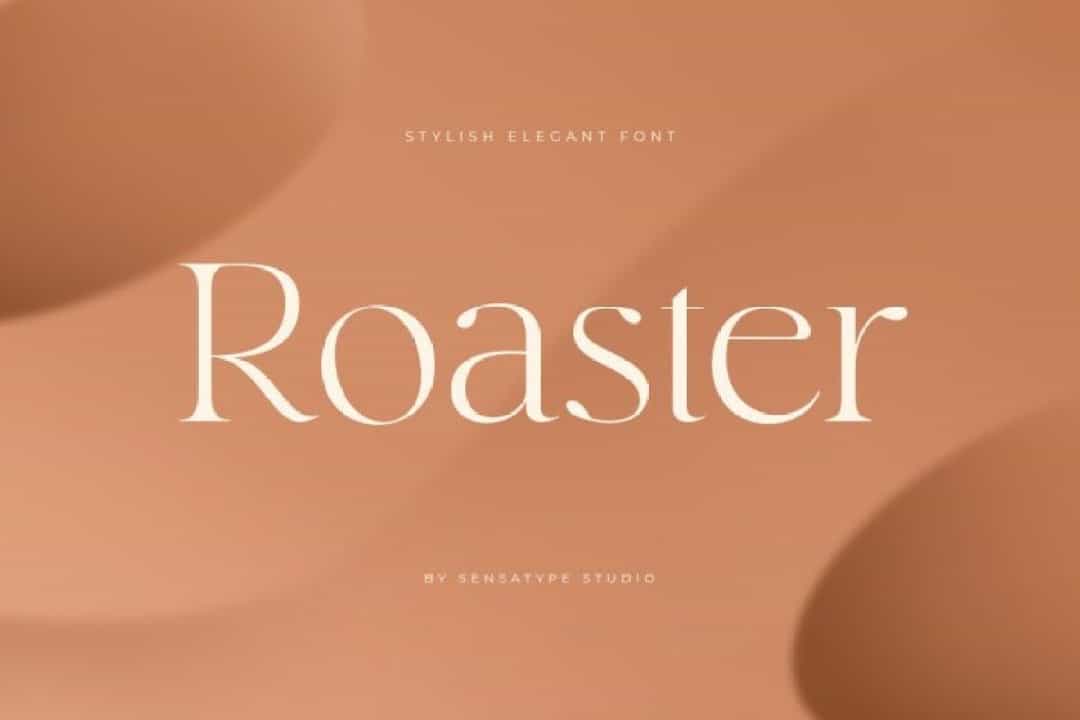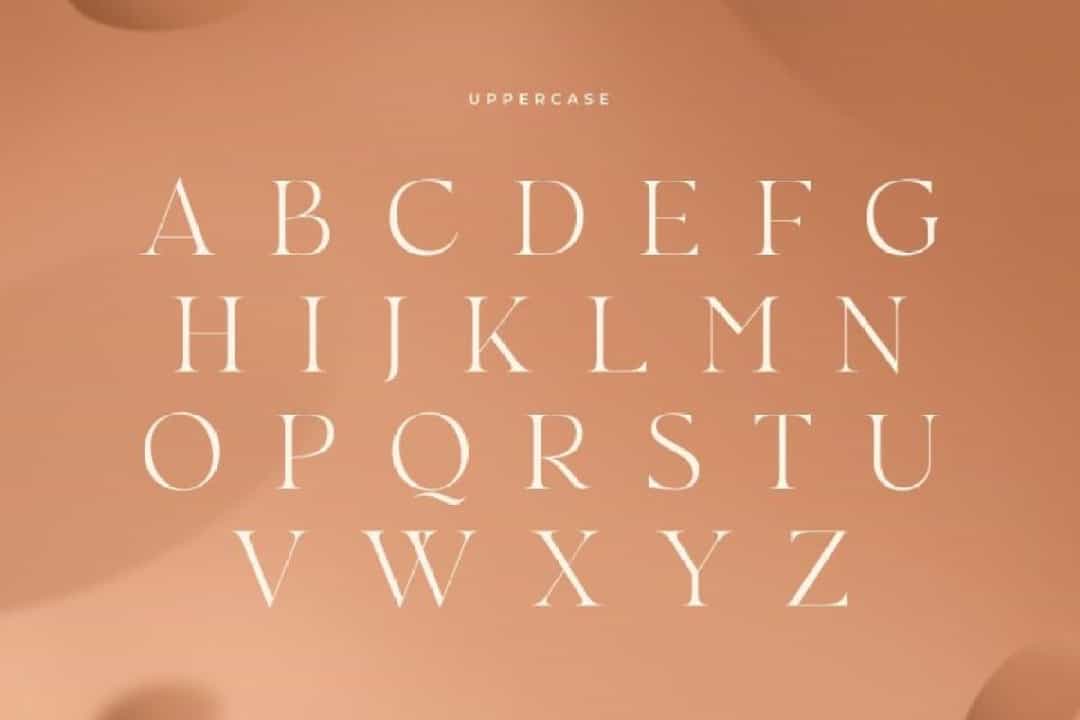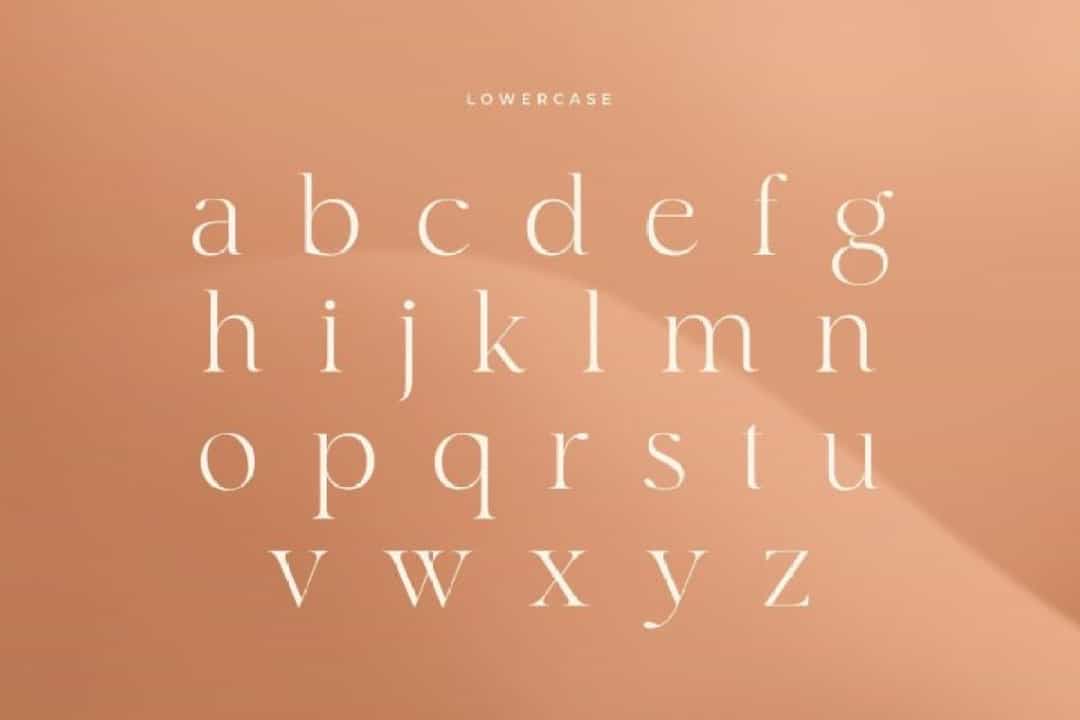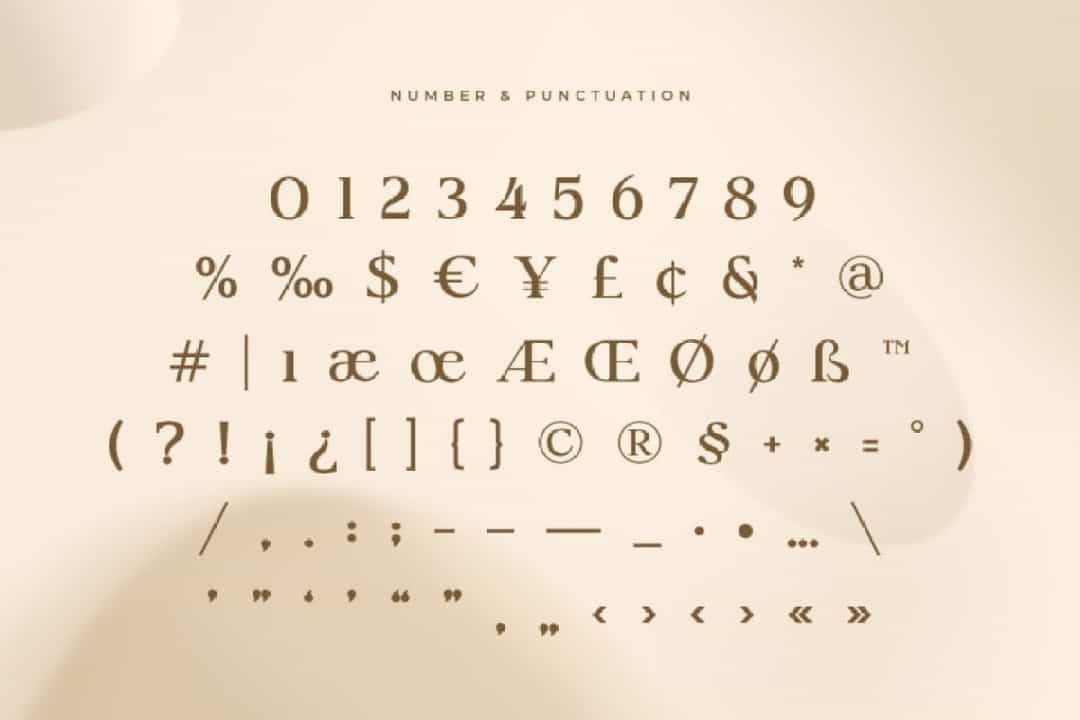
Discover Roaster Font, part of the Serif collection—a versatile and unique font perfect for adding a personal touch to your projects. Download it for free and enjoy crafting designs with style, from invitations to social media posts. This font is available exclusively for personal use, giving you the freedom to create without limits. Unlock your creativity with Roaster Font today!
Roaster Font is a crafted Serif font designed to add a touch of timeless elegance to your projects. In todays era it’s essential, for designers and brand owners to ensure their brand stands out. Our goal is to analyze how different typefaces can enhance logo designs giving them an distinctive look. This font features characters that allow you to create variations to meet your creative requirements.